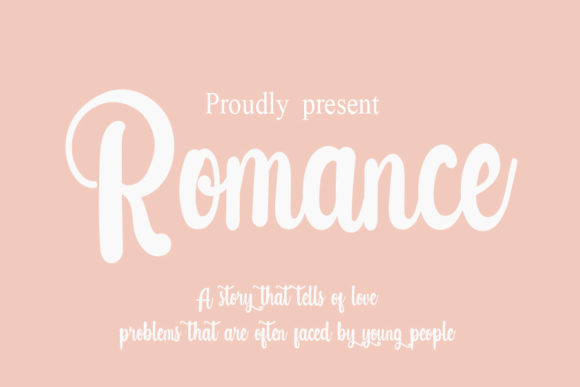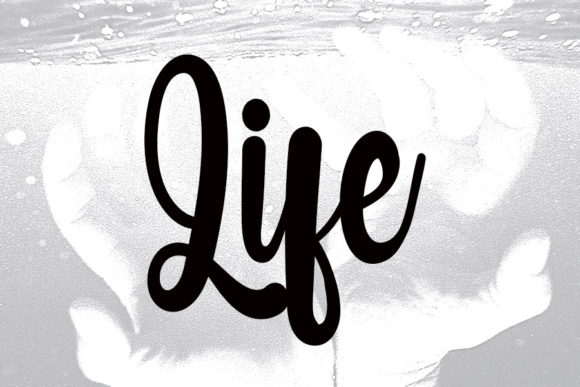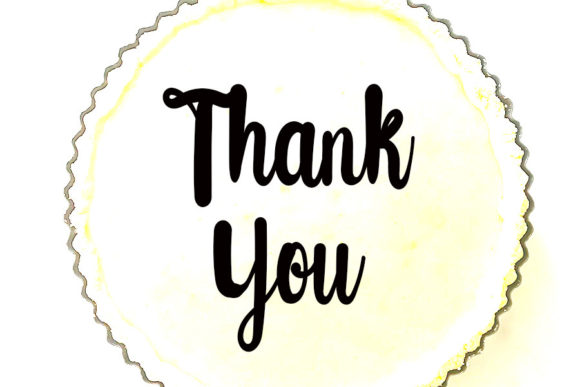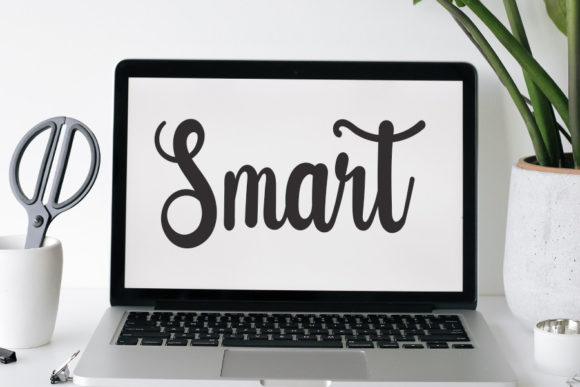
Hearts Font
About Hearts Font
Hearts is a warm and inviting handwritten font, intricately crafted to secure its place as a cherished favorite. With a deliberate blend of classy calligraphic influences and a contemporary, fresh vibe, this font embodies versatility and charm that make it an appealing choice across various design applications.
The friendly and approachable nature of Hearts positions it as an excellent option for a diverse array of design projects. Whether employed in personal correspondence, creative ventures, or branding endeavors, Hearts’ handwritten charm imparts an authentic and inviting touch. The meticulous design ensures that it upholds a sense of class and sophistication, making it suitable for a range of contexts where a refined yet friendly aesthetic is desired.
Hearts seamlessly merges classic calligraphic elements with a modern twist, resulting in a delightful harmony that resonates with a wide audience. The incorporation of contemporary and fresh design elements enhances its adaptability, allowing designers to seamlessly integrate it into projects spanning from traditional to cutting-edge, all while maintaining its inherent elegance.
With Hearts, designers have at their disposal a reliable font that possesses a timeless quality while staying attuned to the dynamic design landscape. Its versatility makes it a valuable asset for applications such as invitations, social media graphics, or any creative project that benefits from a handwritten, friendly, and stylish touch.
In essence, Hearts is more than just a font; it’s a carefully designed tool that effortlessly captures the fusion of classic and contemporary aesthetics. Its friendly handwritten style positions it as a favorite among designers seeking a flexible, classy, and fresh addition to their design toolkit. With Hearts, every project is infused with a unique blend of warmth, sophistication, and modern flair.